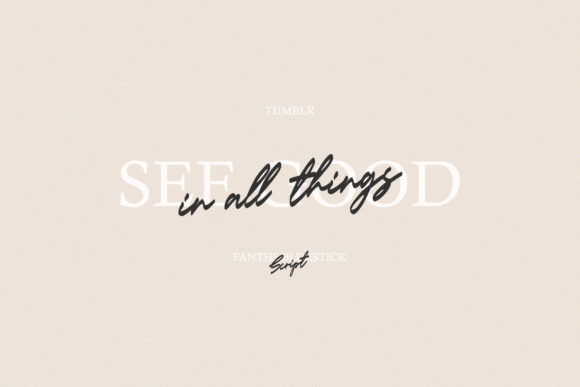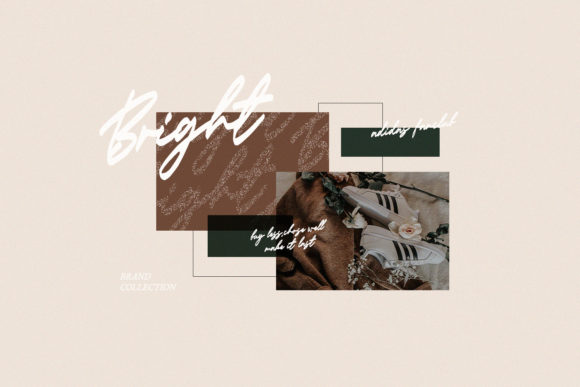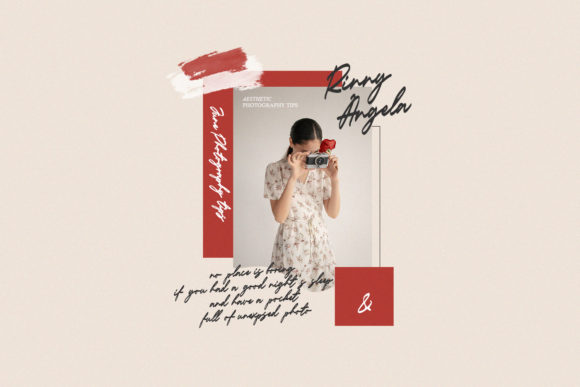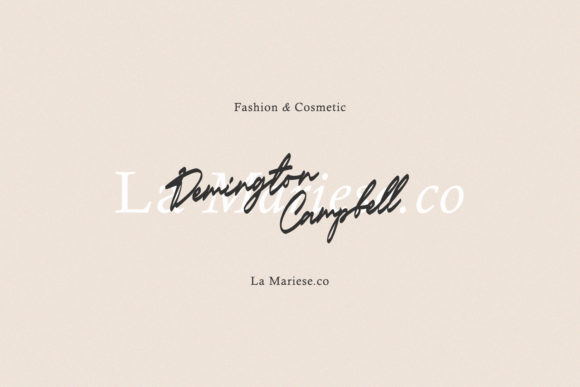
Introducing Fanths Bluestick Font: Elevate Your Designs with Elegance and Sophistication
Are you a designer or crafter looking for a font that exudes class and style? Look no further than Fanths Bluestick Font. This incredibly versatile script font is perfect for adding a touch of elegance and sophistication to a wide range of designs, from wedding invitations and thank you cards to logos and greeting cards.
The Beauty of Fanths Bluestick Font
Fanths Bluestick Font is a stunning script font that boasts a unique and stylish aesthetic. Its beautiful, flowing lines and curves make it perfect for designs that require a personalized touch. Whether you’re creating wedding stationery, branding materials, or social media graphics, Fanths Bluestick Font is sure to impress.
What Makes Fanths Bluestick Font So Special?
So, what sets Fanths Bluestick Font apart from other fonts on the market? Here are just a few reasons why this font is a cut above the rest:
- Elegant and sophisticated: Fanths Bluestick Font has a refined, upscale feel that’s perfect for high-end designs.
- Versatile: This font works beautifully on a wide range of designs, from wedding invitations to logos and more.
- Easy to read: Despite its elegant appearance, Fanths Bluestick Font is surprisingly easy to read, making it perfect for both digital and print designs.
- Unique: Fanths Bluestick Font has a distinctive look that’s sure to help your designs stand out from the crowd.
Ideas for Using Fanths Bluestick Font
So, how can you use Fanths Bluestick Font to elevate your designs? Here are a few ideas to get you started:
- Wedding invitations: Make your wedding stationery truly unforgettable with Fanths Bluestick Font.
- Thank you cards: Add a touch of elegance to your thank you cards and show your appreciation in style.
- Logos: Use Fanths Bluestick Font to create a sophisticated and memorable logo for your business or brand.
- Greeting cards: Make your greeting cards truly special with this beautiful script font.
- Social media graphics: Add a touch of class to your social media graphics and stand out from the crowd.
Tips for Getting the Most Out of Fanths Bluestick Font
To get the most out of Fanths Bluestick Font, here are a few tips to keep in mind:
- Use it sparingly: While Fanths Bluestick Font is beautiful, it can be overwhelming if overused. Use it sparingly to add a touch of elegance to your designs.
- Pair it with other fonts: Experiment with pairing Fanths Bluestick Font with other fonts to create a unique and visually appealing look.
- Experiment with colors: Don’t be afraid to experiment with different colors and textures to add depth and interest to your designs.
In conclusion, Fanths Bluestick Font is an incredibly classy and stylish script font that’s perfect for designers and crafters looking to add a touch of elegance and sophistication to their designs. With its beautiful, flowing lines and curves, this font is sure to impress on a wide range of designs, from wedding invitations and thank you cards to logos and greeting cards. So why wait? Download Fanths Bluestick Font today and start elevating your designs with elegance and sophistication.